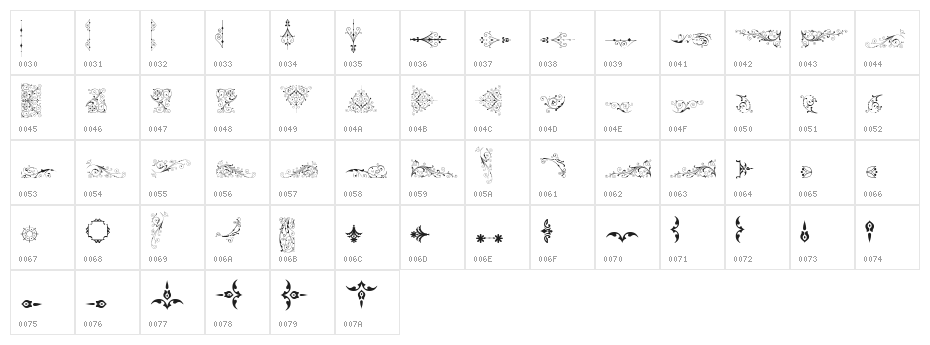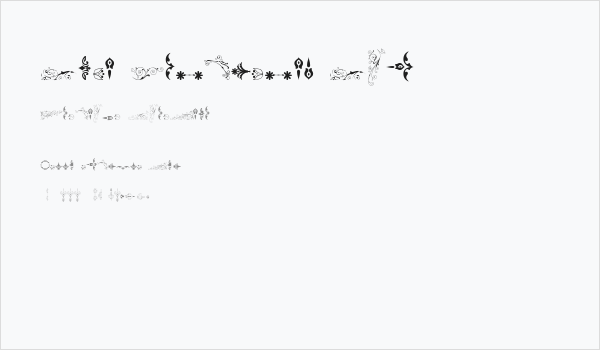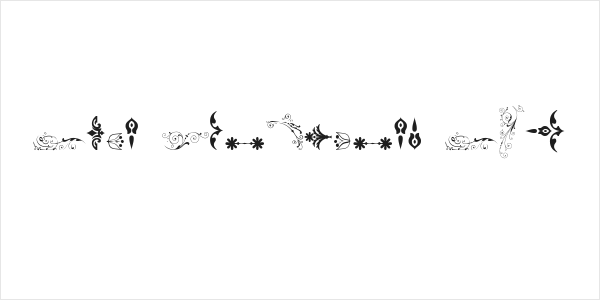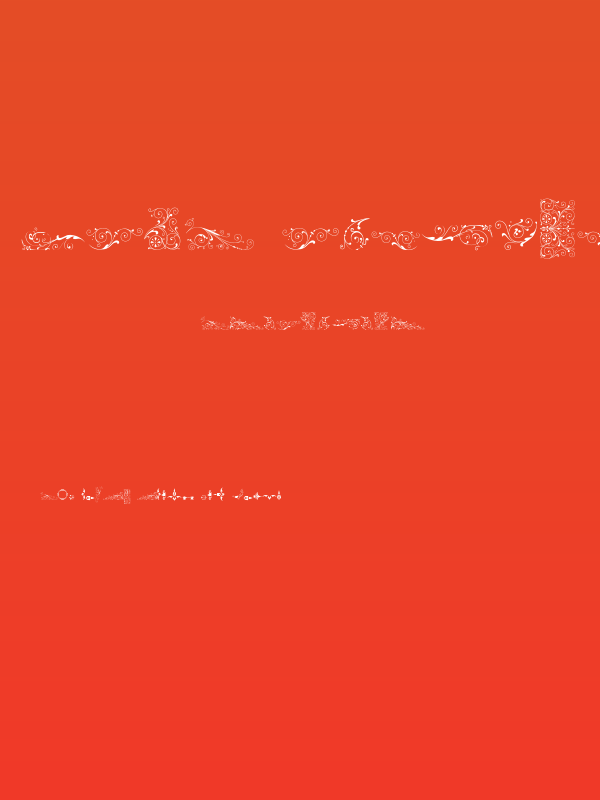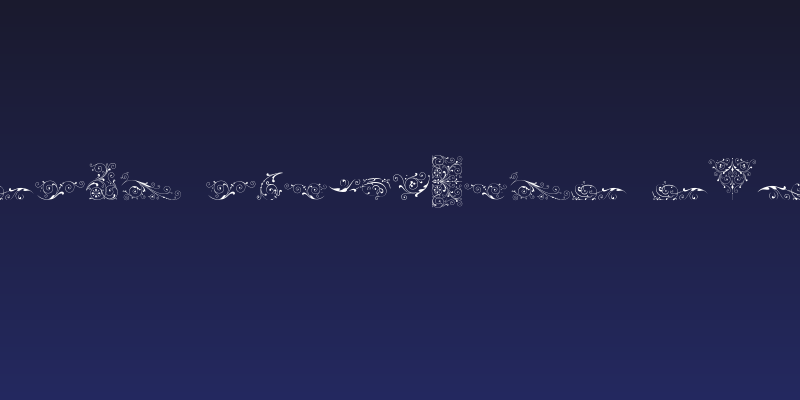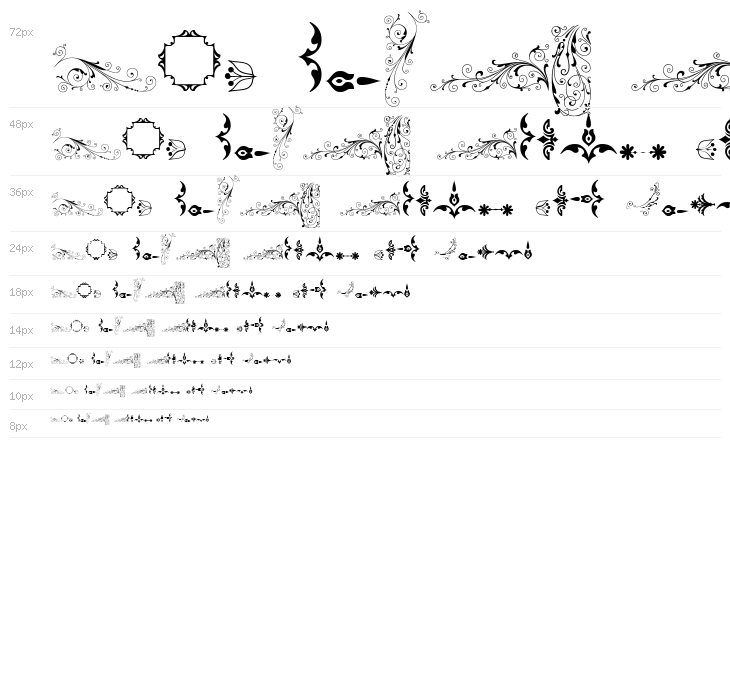
Soft Ornaments Six Font
Soft Ornaments Six Description
A collection of highly decorative ornamental glyphs featuring intricate swirls, flourishes, and symmetrical motifs. The designs range from delicate, thin lines to bold, filled shapes, evoking a vintage or classical aesthetic suitable for embellishments.
Overall StyleVintage, Decorative, Ornamental
Use CaseBorders, Dividers, Decorative accents
Proposed ProjectsWedding invitations, certificates, book covers, decorative borders, vintage branding, and ornamental dividers.